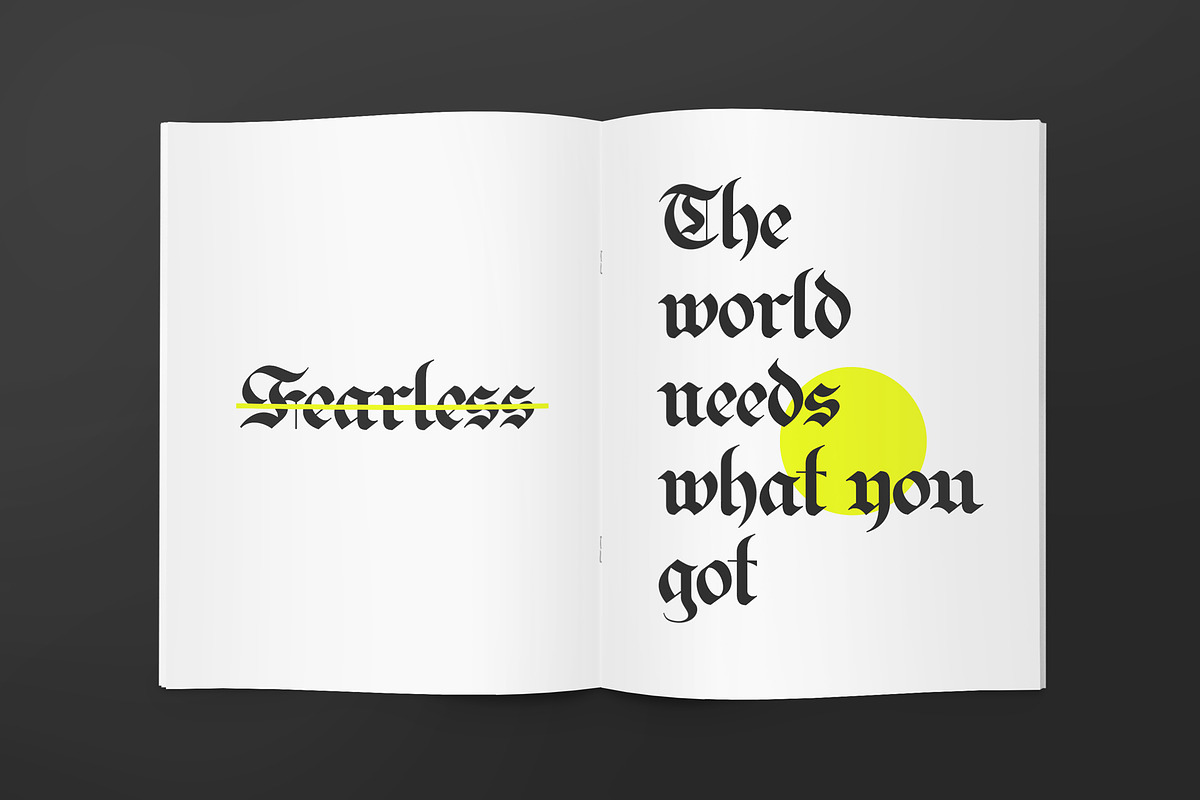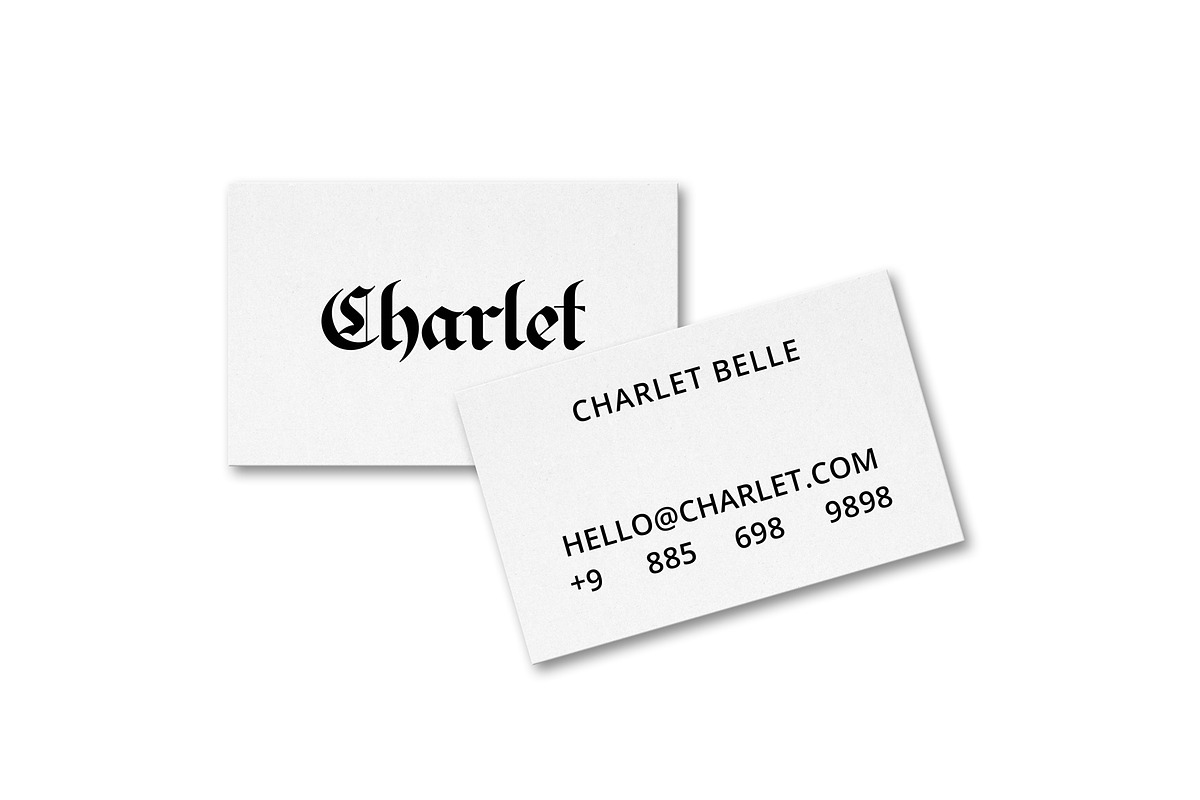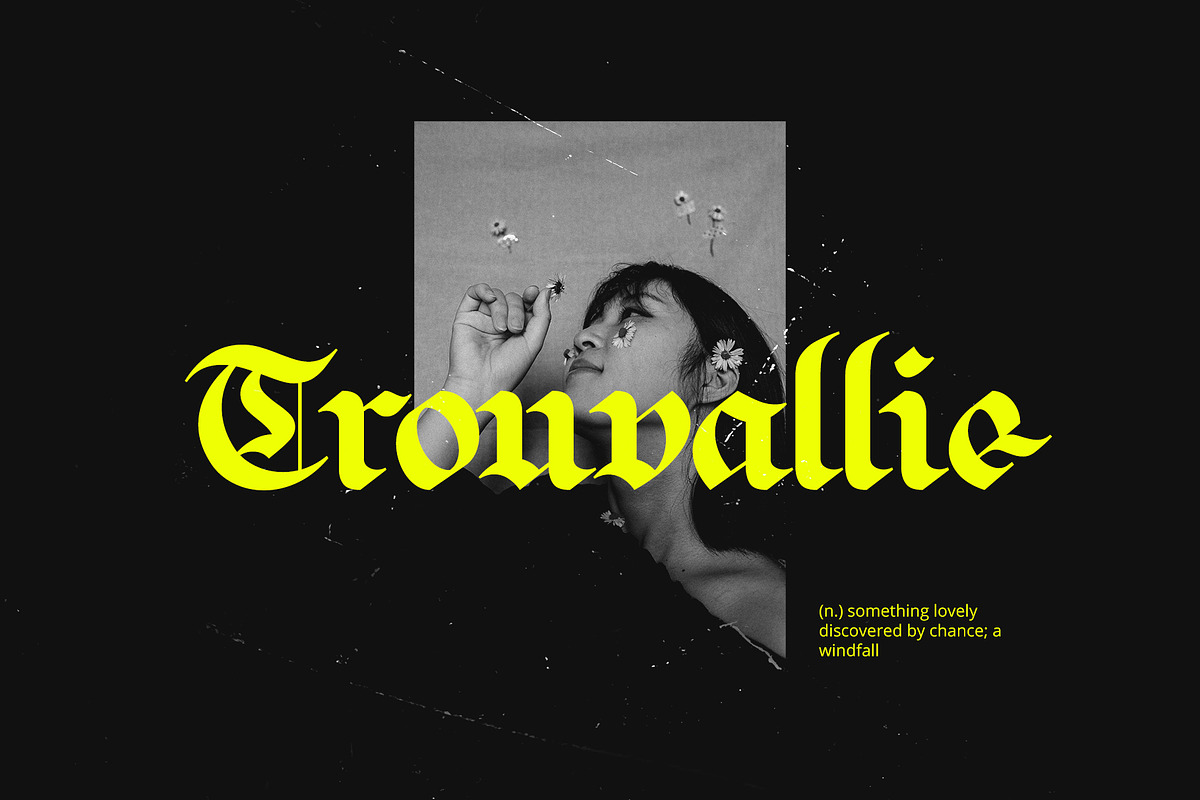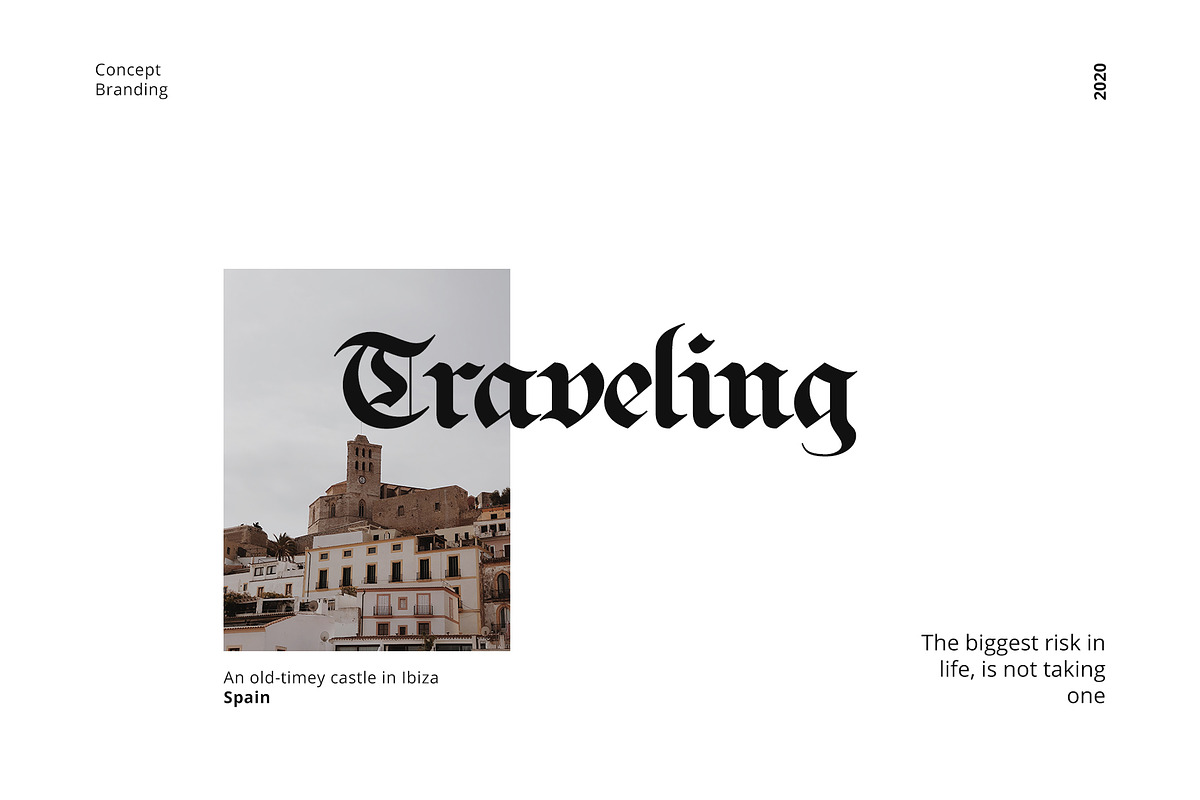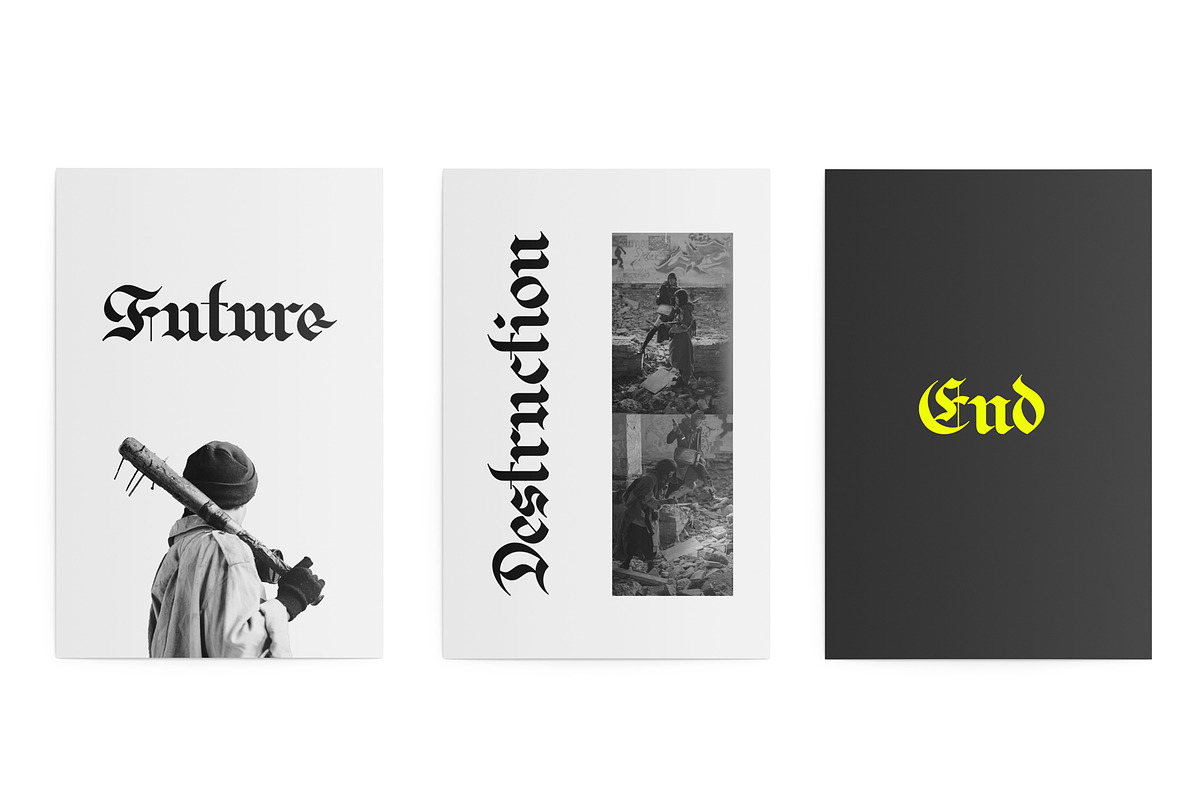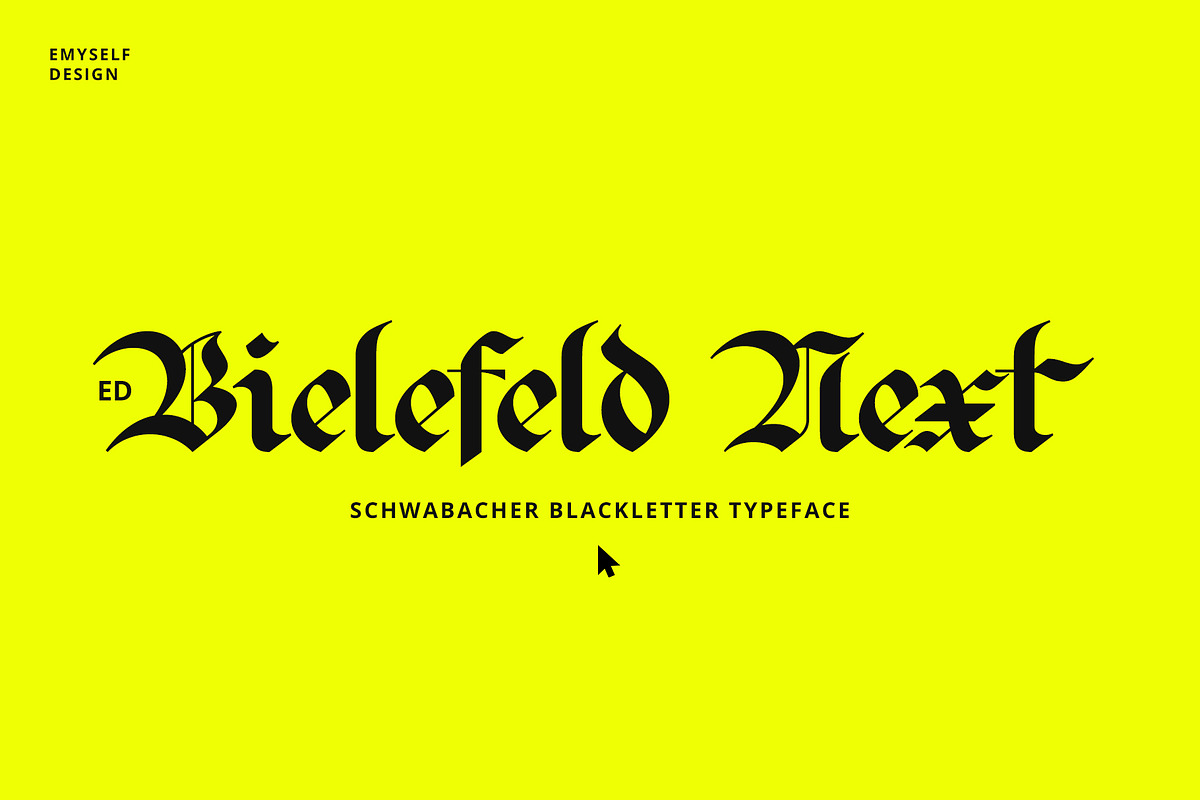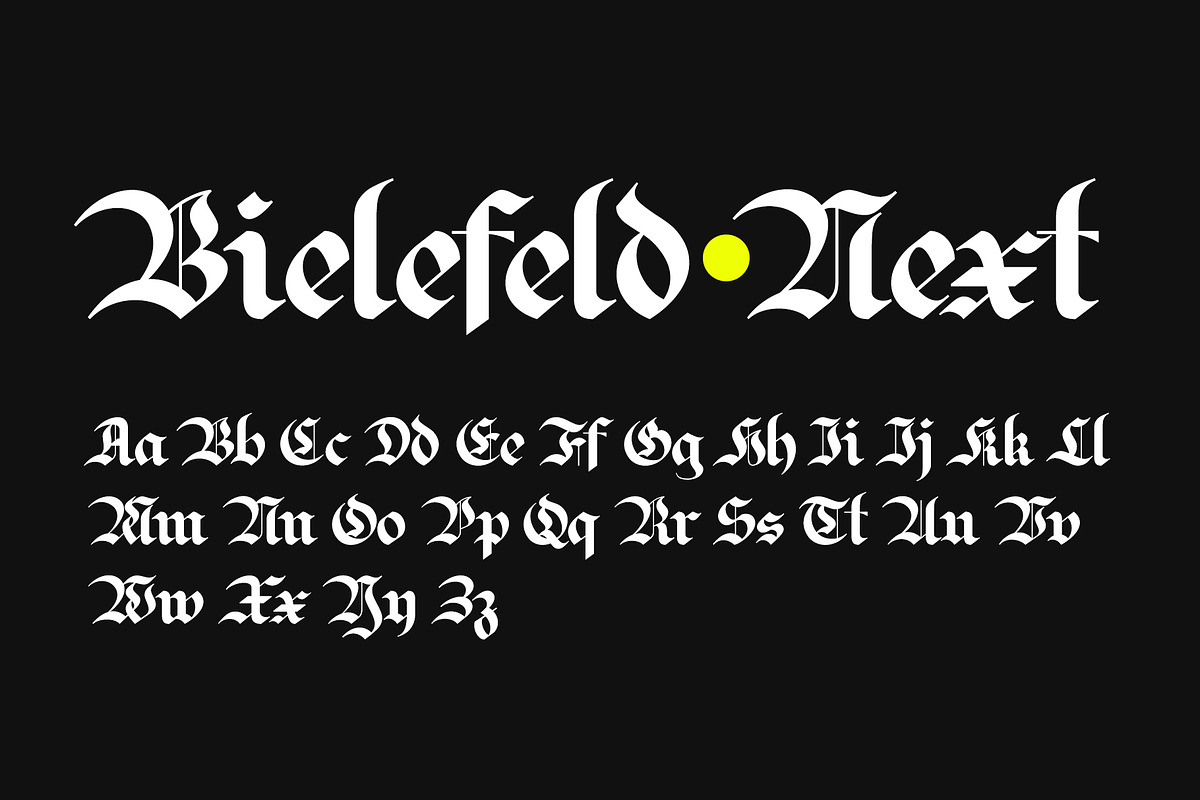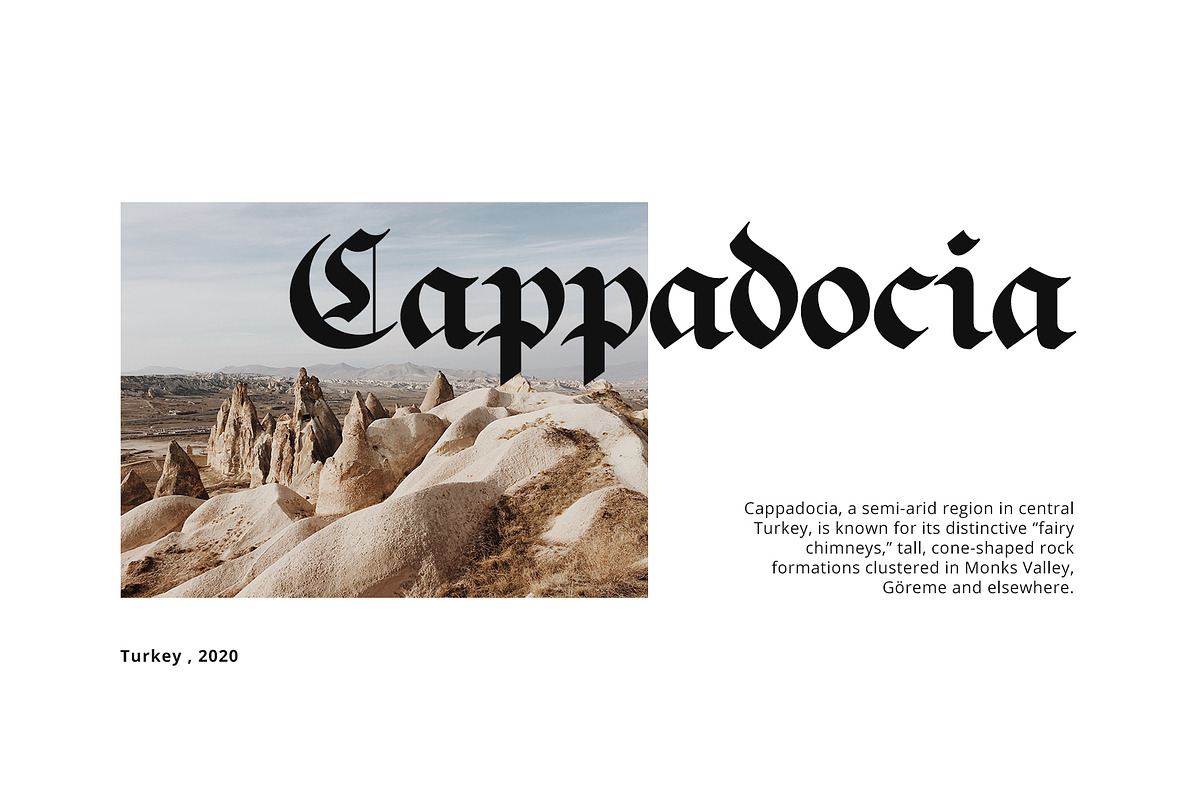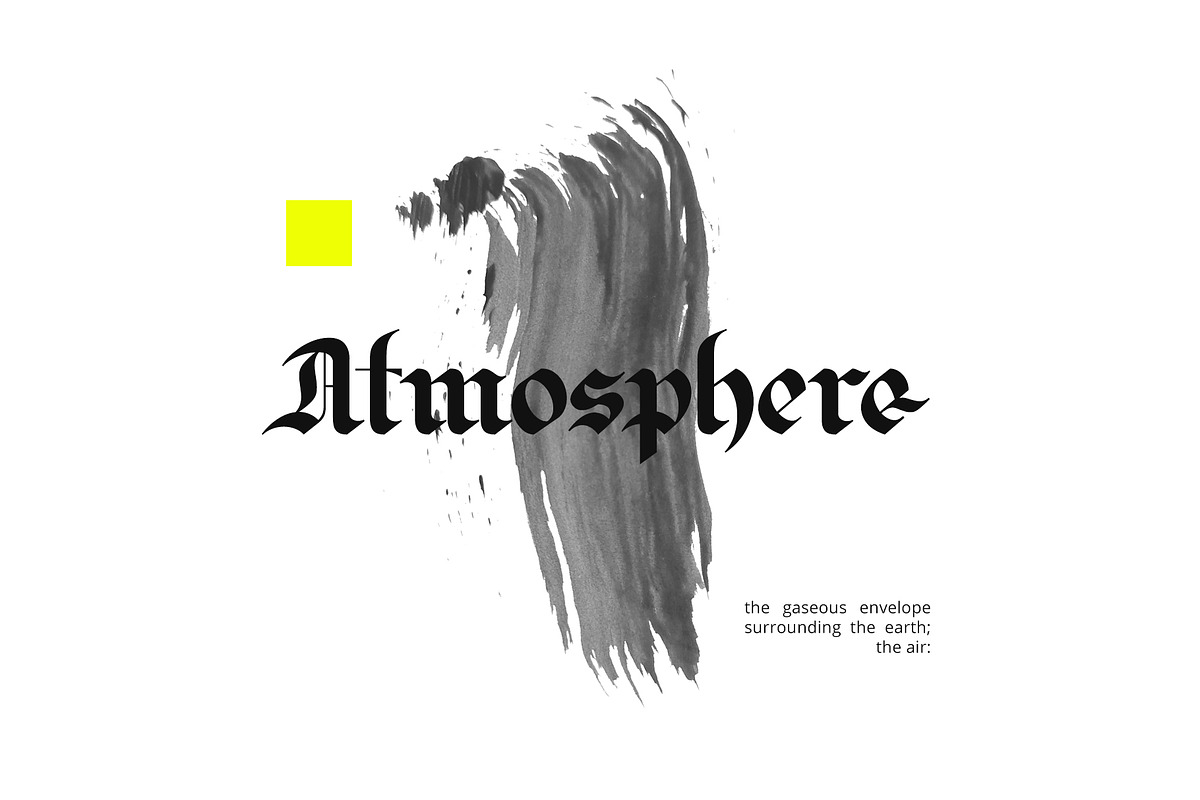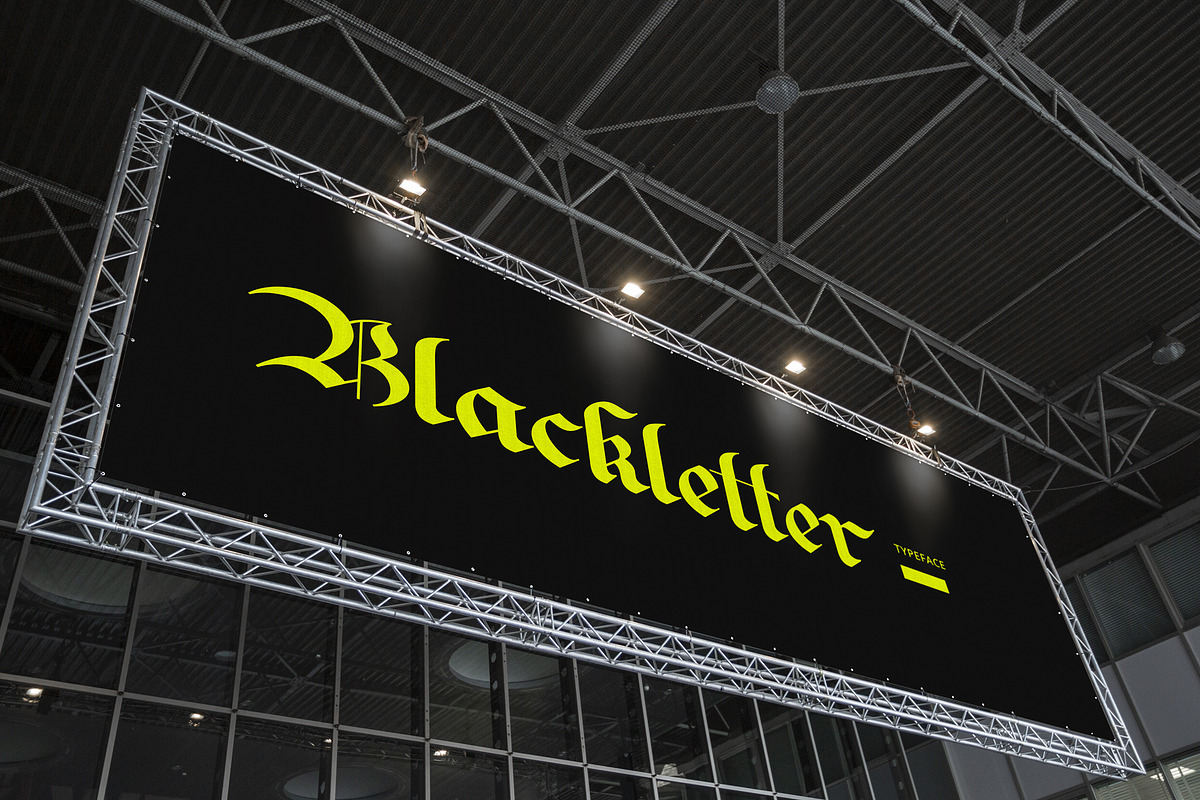
ED Bielefeld Next
ED Bielefeld next is an advanced font from the previous font, namely (Bielefeld typeface) which has been redesigned so that it can be used for design needs and perfecting its character. different from the previous fonts, this font has a stylistic character set, ligatures and added multi-language characters.
This font is suitable for logos, posters, magazines, books, branding , apparel, and other design needs, or also for collections.